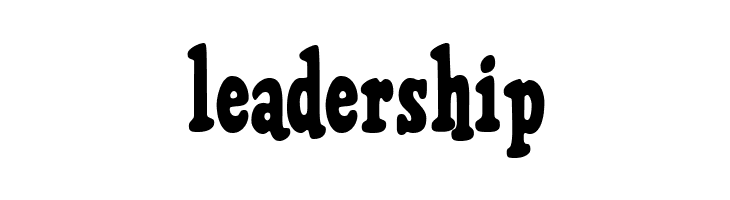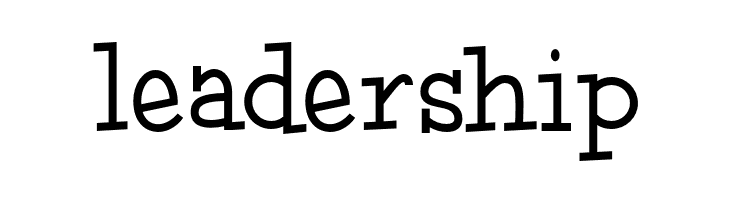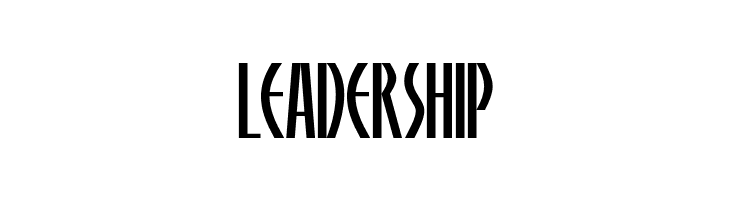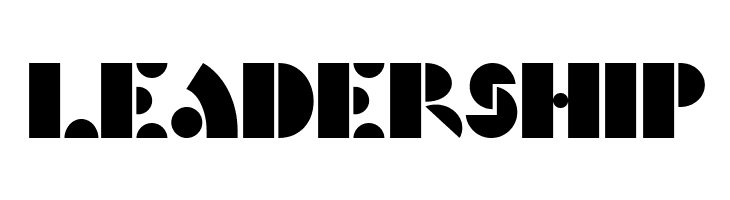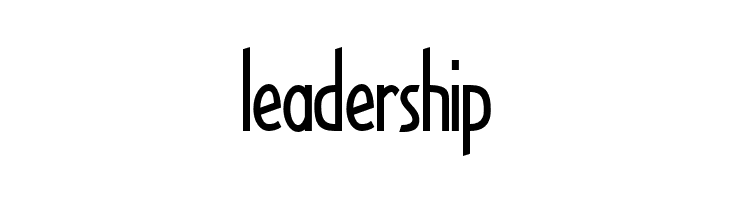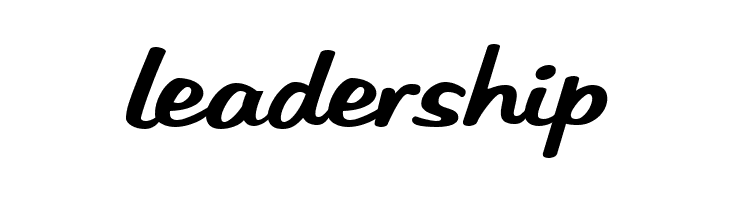
A whimsical and playful font with bold, irregular letterforms and swirling embellishments.
A modern, handwritten font with a casual and artistic style.
A pixelated, blocky font with a retro digital aesthetic.
A bold, playful font with a slight slant and moderate contrast.
A decorative stencil font featuring intricate aquatic-themed designs.
A bold, condensed font with a vintage, dynamic style.
Bird-themed stencil display font with unique illustrated glyphs.
A bold, geometric font with industrial and mechanical influences.
A decorative font with intricate dragon motifs forming each character.
A decorative font inspired by traditional Chinese dragons, featuring intricate and bold designs.
A modern, geometric font with sharp angles and a futuristic style.
A bold, angular font with sharp, geometric shapes for a striking appearance.
A bold, flame-inspired font with jagged, dynamic characters.
Ornamental floral stencil illustrations with bold, detailed silhouettes.
Decorative floral stencil font with unique plant illustrations for each character.
A playful serif font with a blend of traditional and modern elements.
A bold, condensed font with high contrast and a vintage poster style.
A bold, condensed font with tall, narrow characters for dramatic impact.
A bold, geometric font with Art Deco influences, featuring unique circular patterns.
A whimsical, tall, and narrow font with a modern-vintage style.
A bold, high-contrast font with tall, narrow characters and elongated serifs.
A tall, narrow, and bold font with tight spacing and a modern aesthetic.
A whimsical, illustrative font featuring playful scenes with children and toys.
A bold, narrow font with a modern, geometric style.
A delicate serif font with thin, elongated strokes and subtle serifs.
A bold, geometric font with a modern and impactful design.